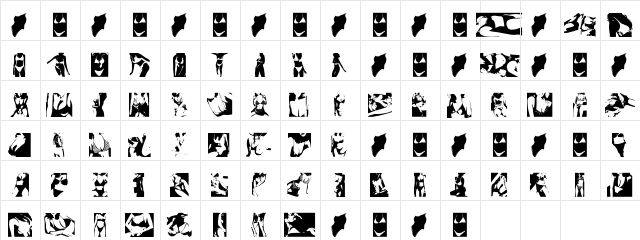
SexyDynami Version2000
Design Context for SexyDynami Typeface
SexyDynami is a composed and adaptable typeface that performs quietly and consistently across a wide range of design contexts.